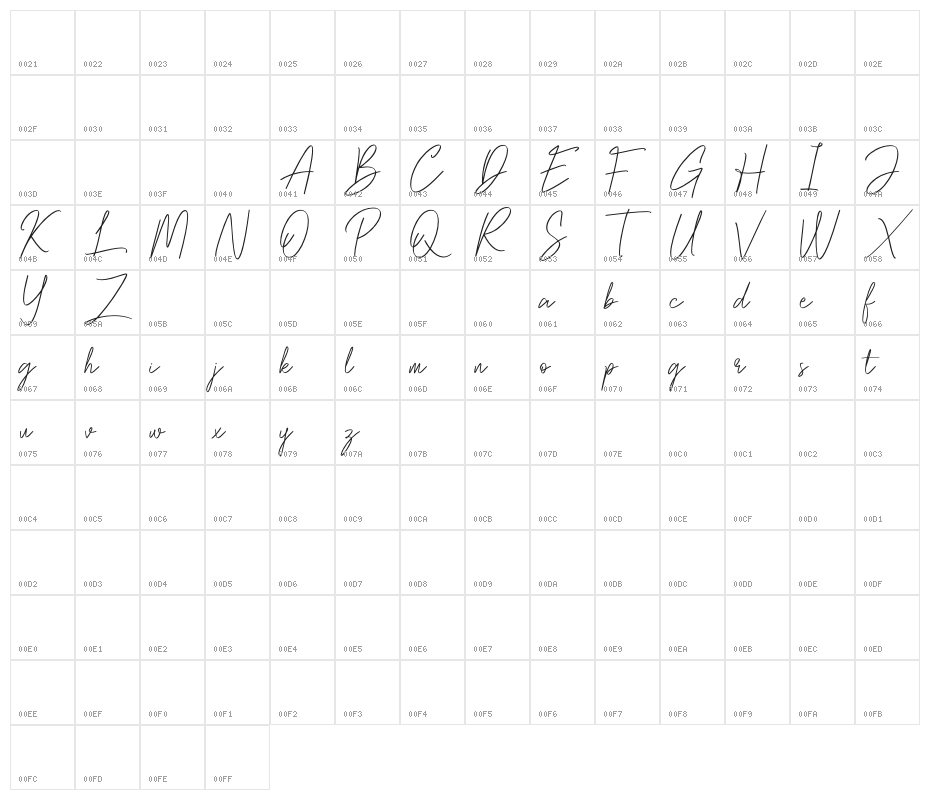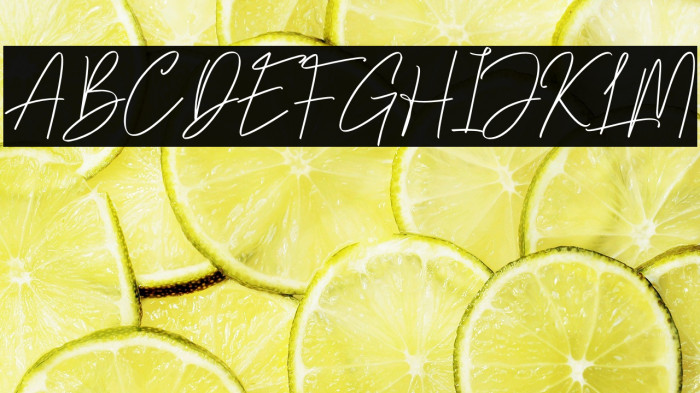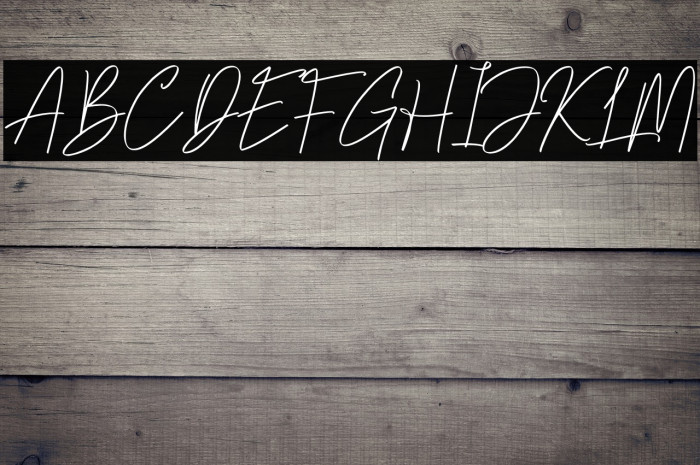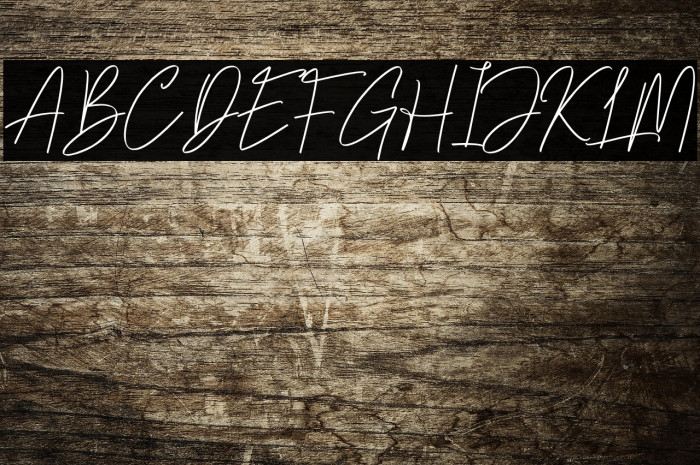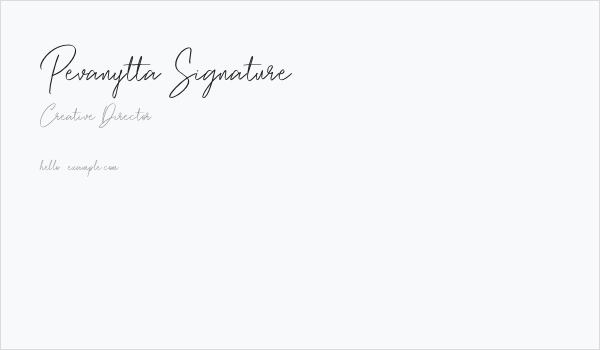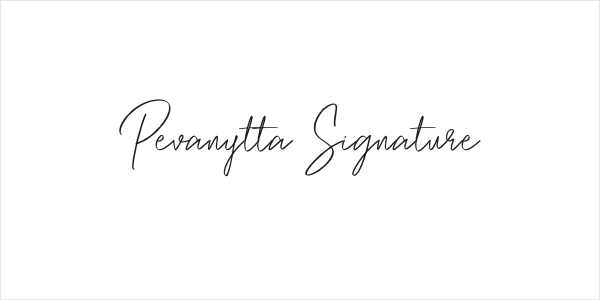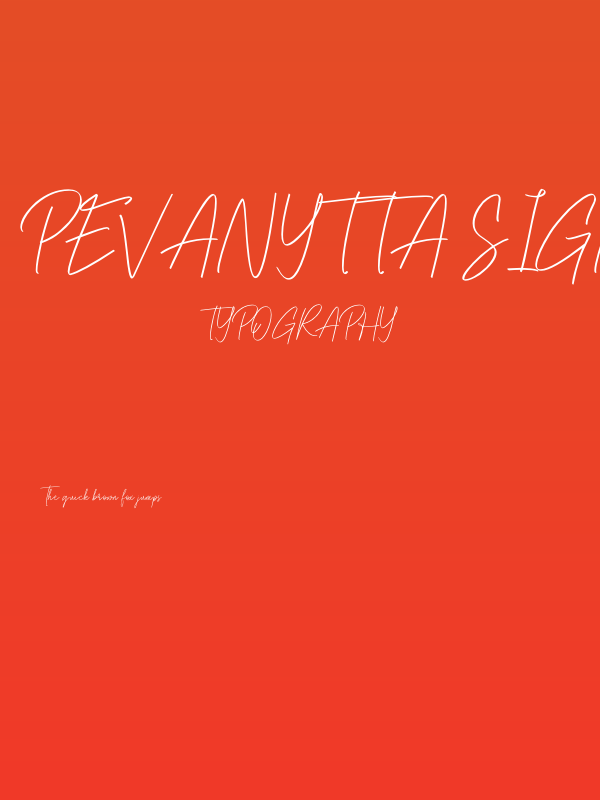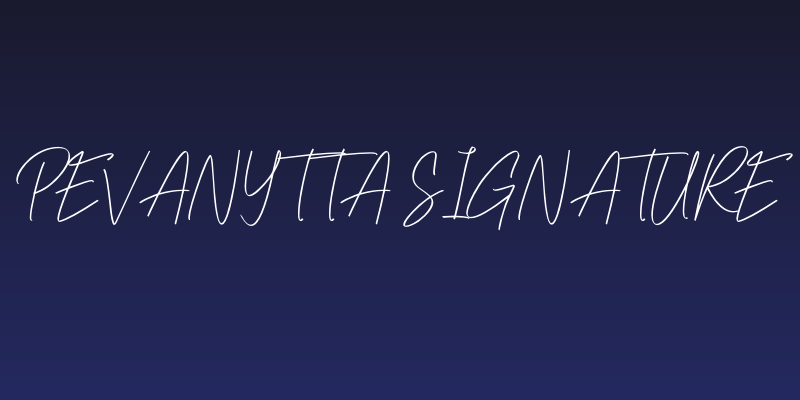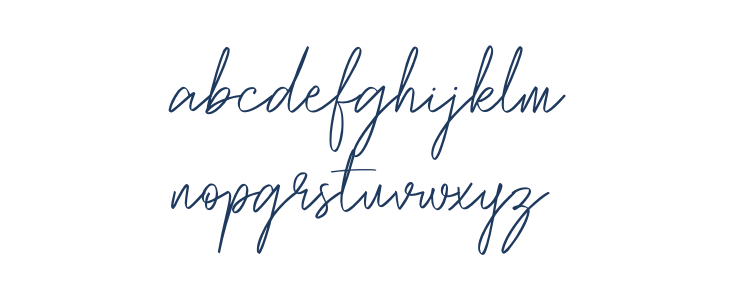
Pevanytta Signature Font
Pevanytta Signature Description
This font features a flowing, elegant script style that mimics the fluidity of a handwritten signature. The uppercase letters are tall and slender, with graceful loops and curves that give them a sophisticated appearance. The lowercase letters maintain a consistent style, with smooth connections between characters, enhancing the cursive effect. The overall design is delicate yet confident, making it suitable for projects that require a personal touch. The font's thin strokes and slight variations in line thickness add to its charm, while the generous spacing between characters ensures readability.
| Use Case | Logos, Invitations, Personal stationery |
| Proposed Projects | Ideal for wedding invitations, branding, personal stationery, and elegant logo designs. |